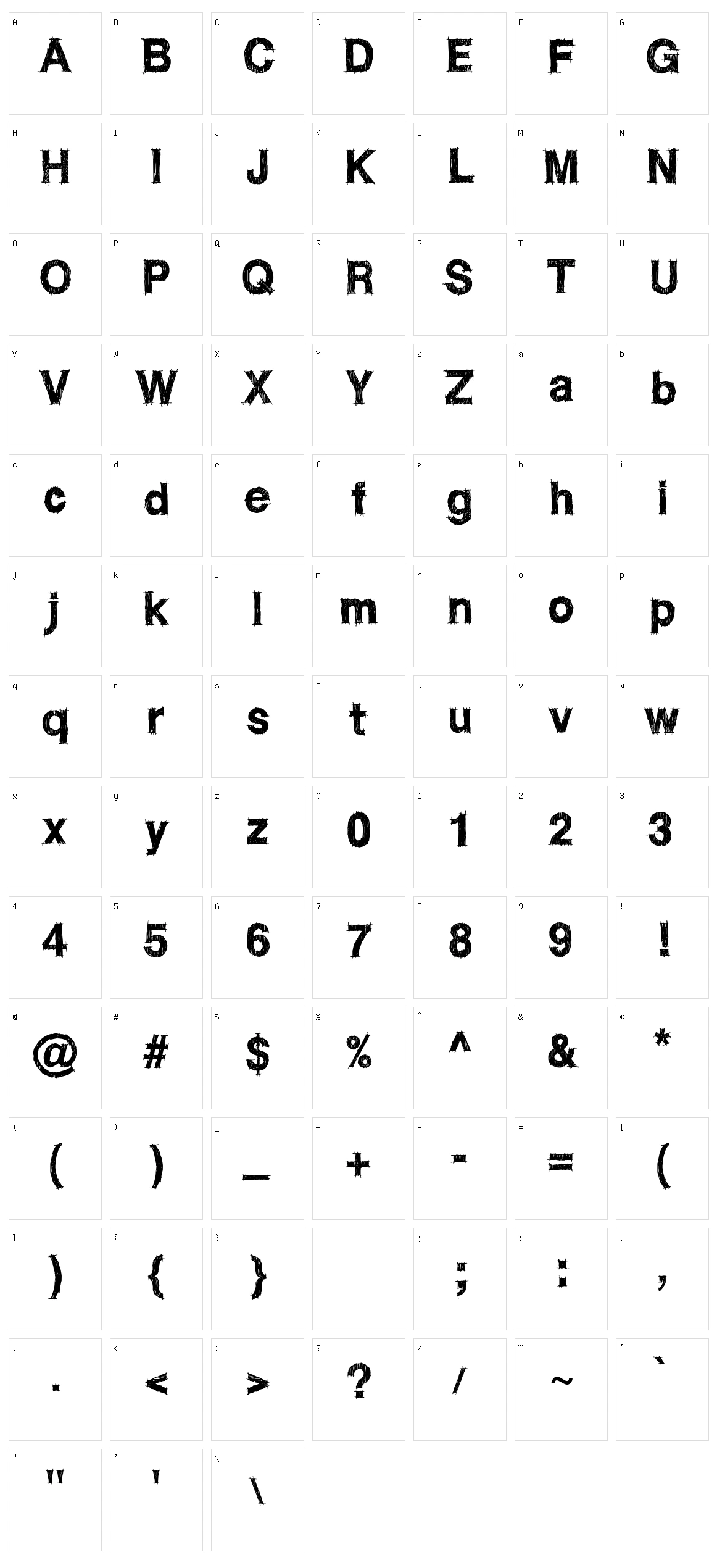
The free font WC RoughTrad Bta is carefully designed by WC Fonts / Atypeek, showcasing a thoughtful balance of creativity and usability and falls under the Trash font style. When you download the ZIP file, it contains only 619.47 KB of font files, making it lightweight and quick to download. Please review the license details below to understand permitted usage and distribution rights. If license information is not available, we recommend using this font for personal projects only or contacting the author directly for commercial usage permissions.